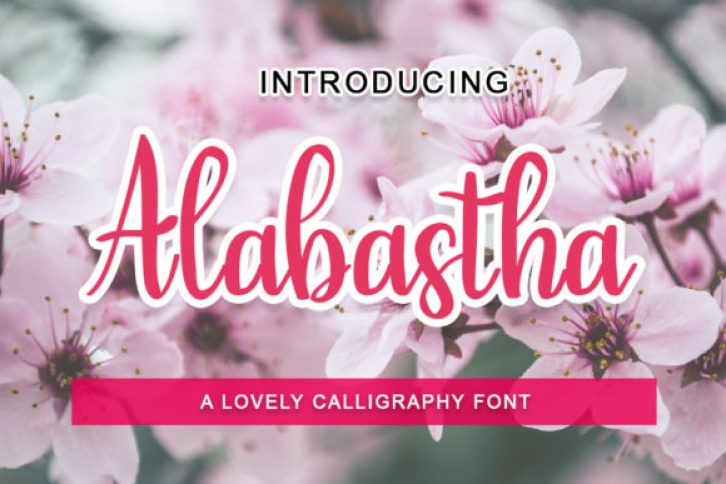
Alabastha is a modern, delicate and incredibly beautiful handwritten font. Fall in love with its authentic feel and use it to create gorgeous wedding invitations, beautiful stationary art, eye-catching social media posts, and cute greeting cards.